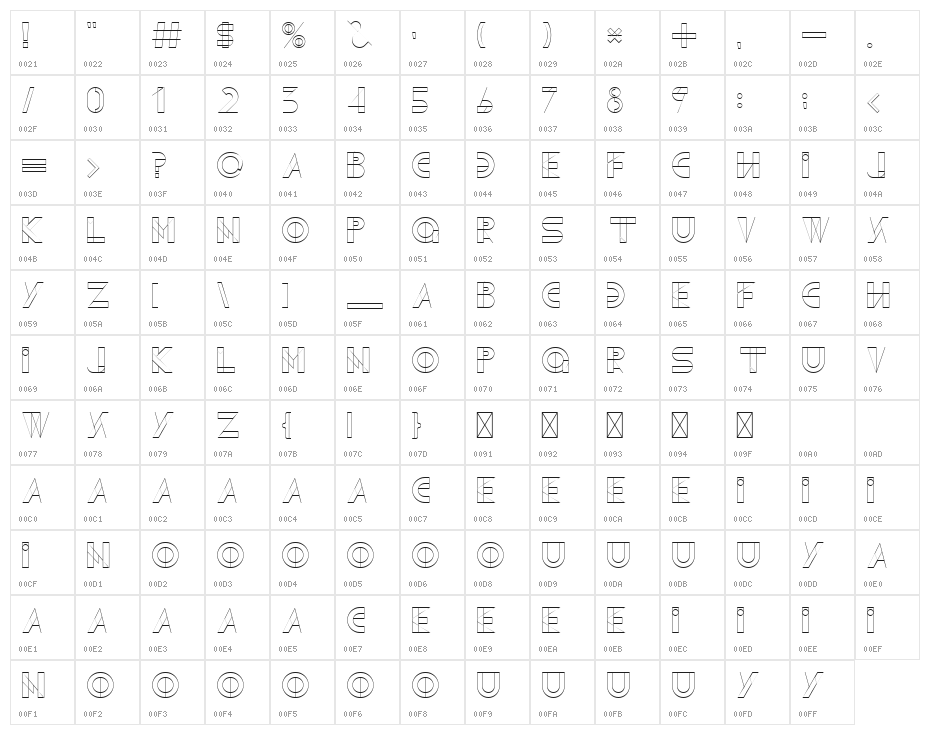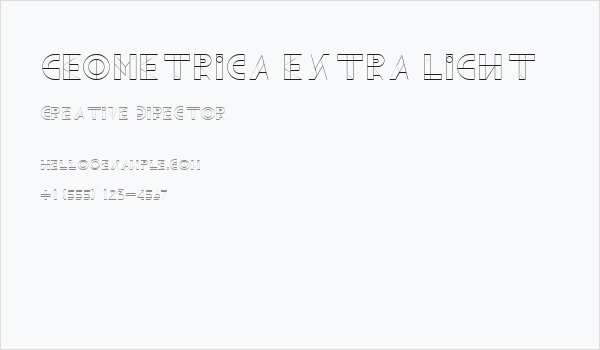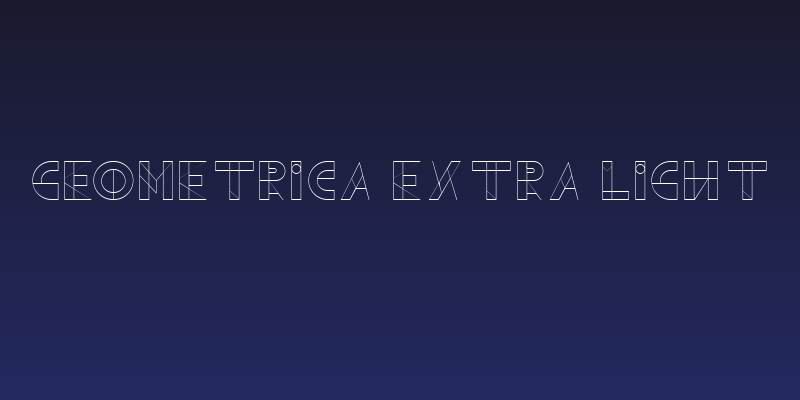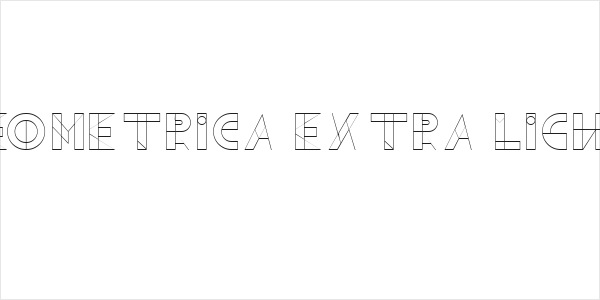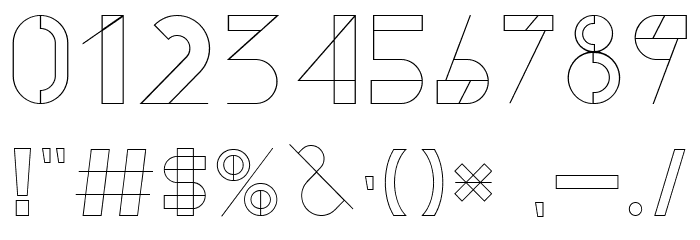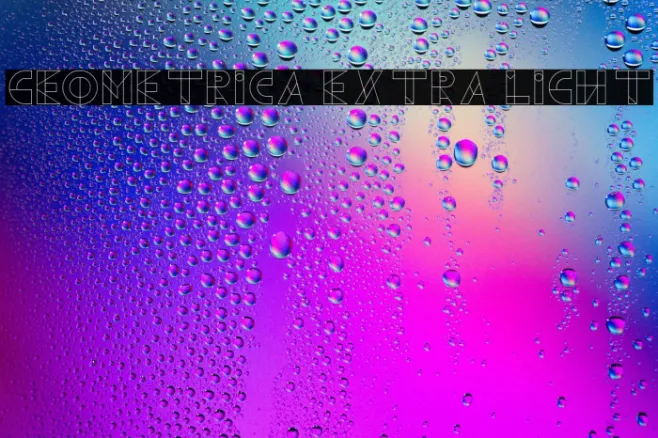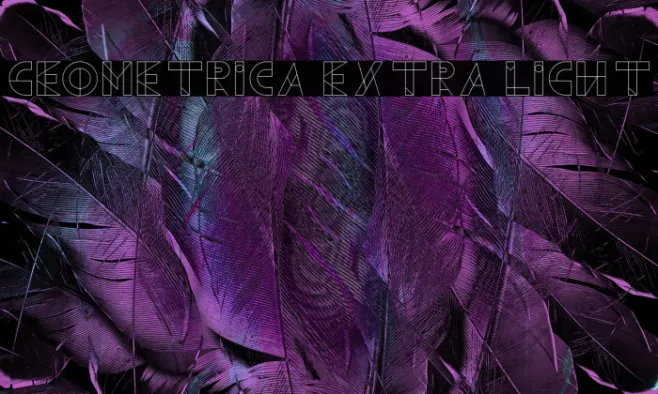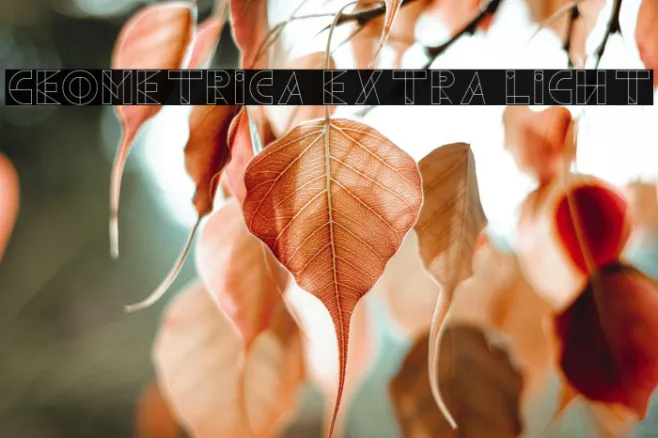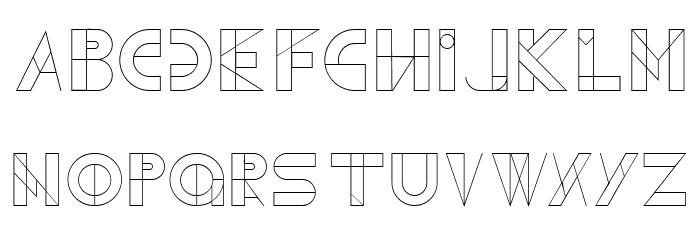
Geometrica Extra Light Font
Geometrica Extra Light Description
This font features a geometric and minimalist design, characterized by its thin, precise lines and open shapes. The characters are constructed with a focus on symmetry and balance, incorporating circular and angular elements that create a modern and futuristic appearance. The uppercase and lowercase letters maintain a consistent style, with a uniform stroke width that emphasizes clarity and readability. The numerals and special characters follow the same geometric principles, ensuring a cohesive look across all glyphs. This font's clean and structured aesthetic makes it suitable for contemporary design projects.
| Proposed Projects | Ideal for modern branding, tech-related designs, minimalist posters, and digital interfaces. |